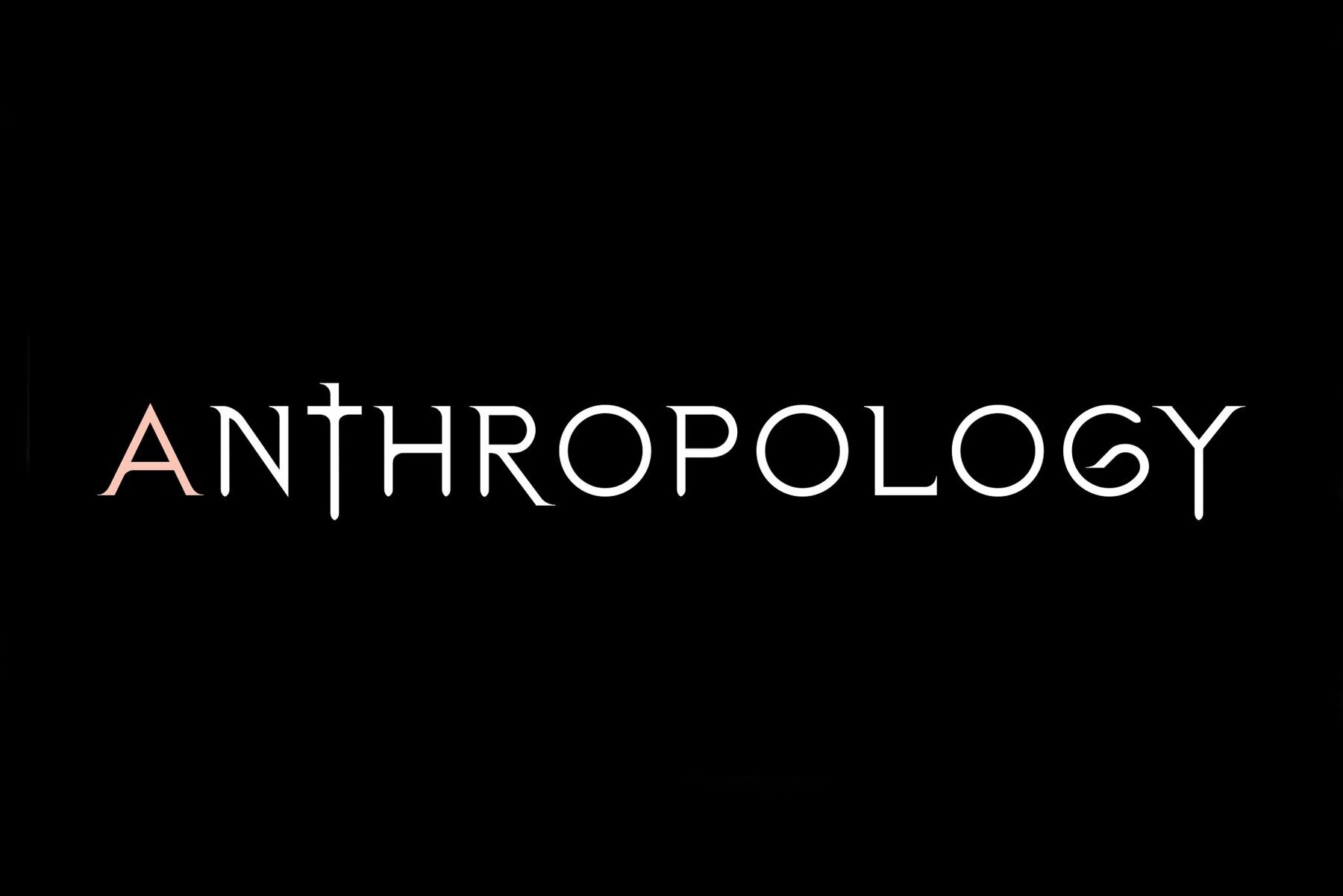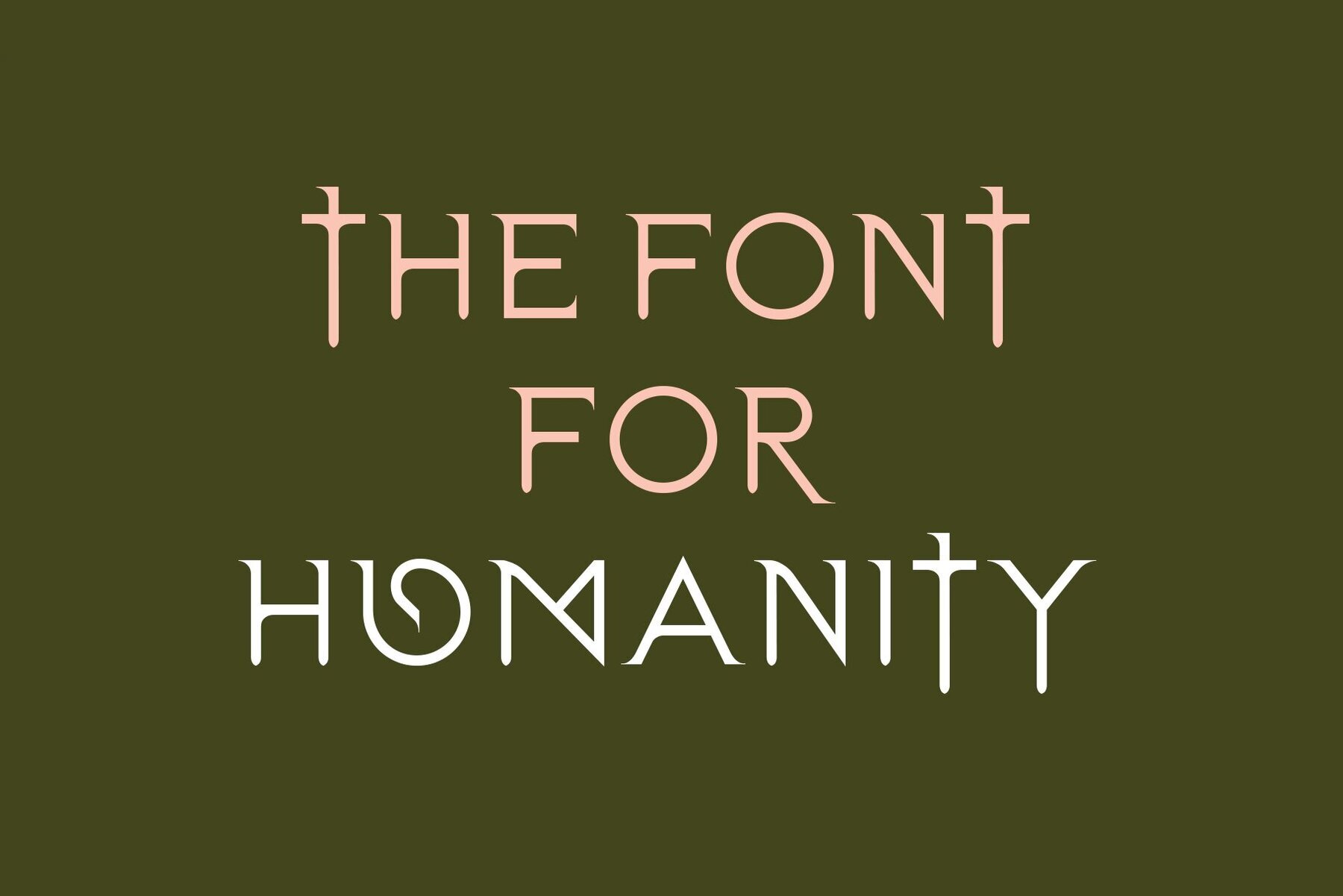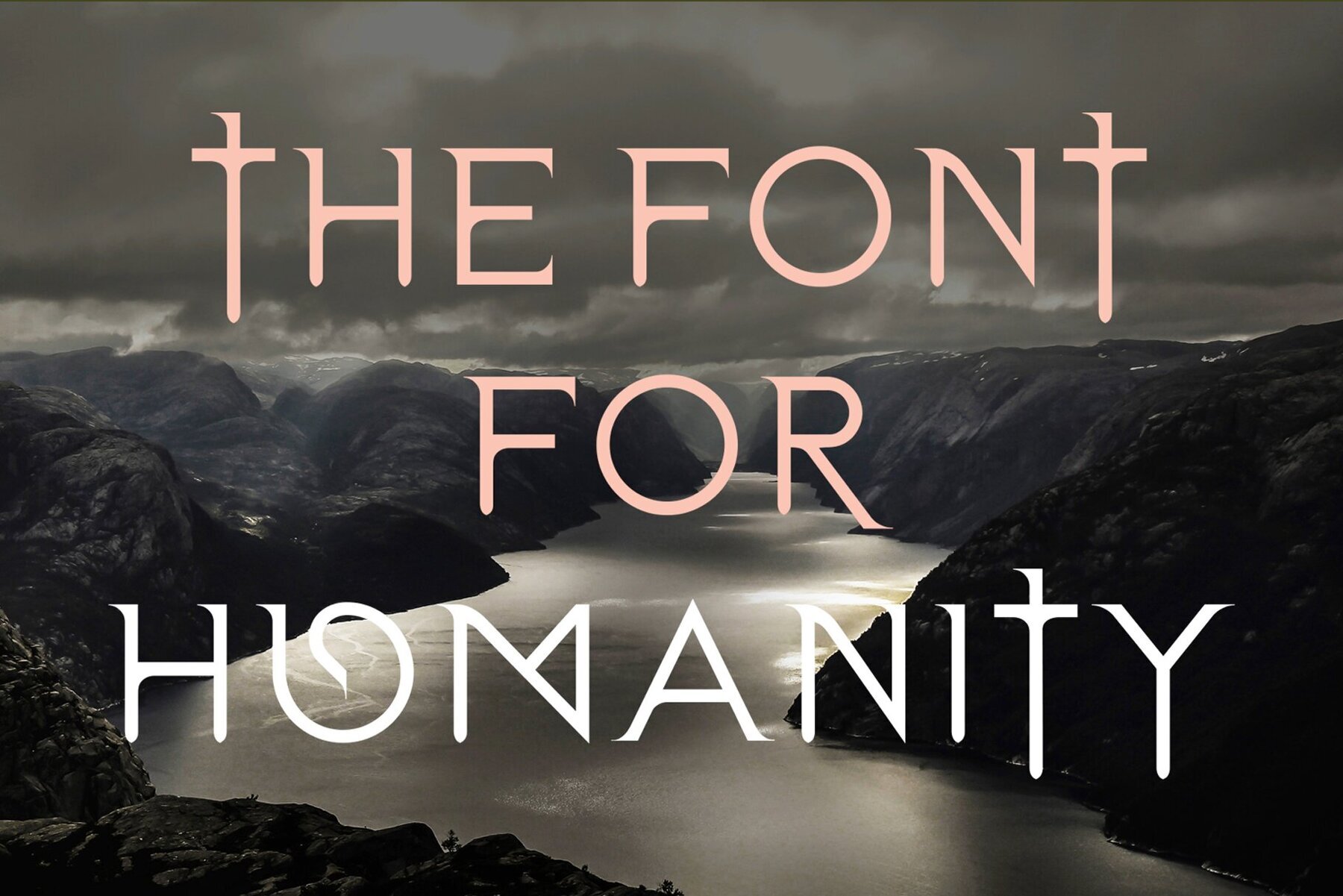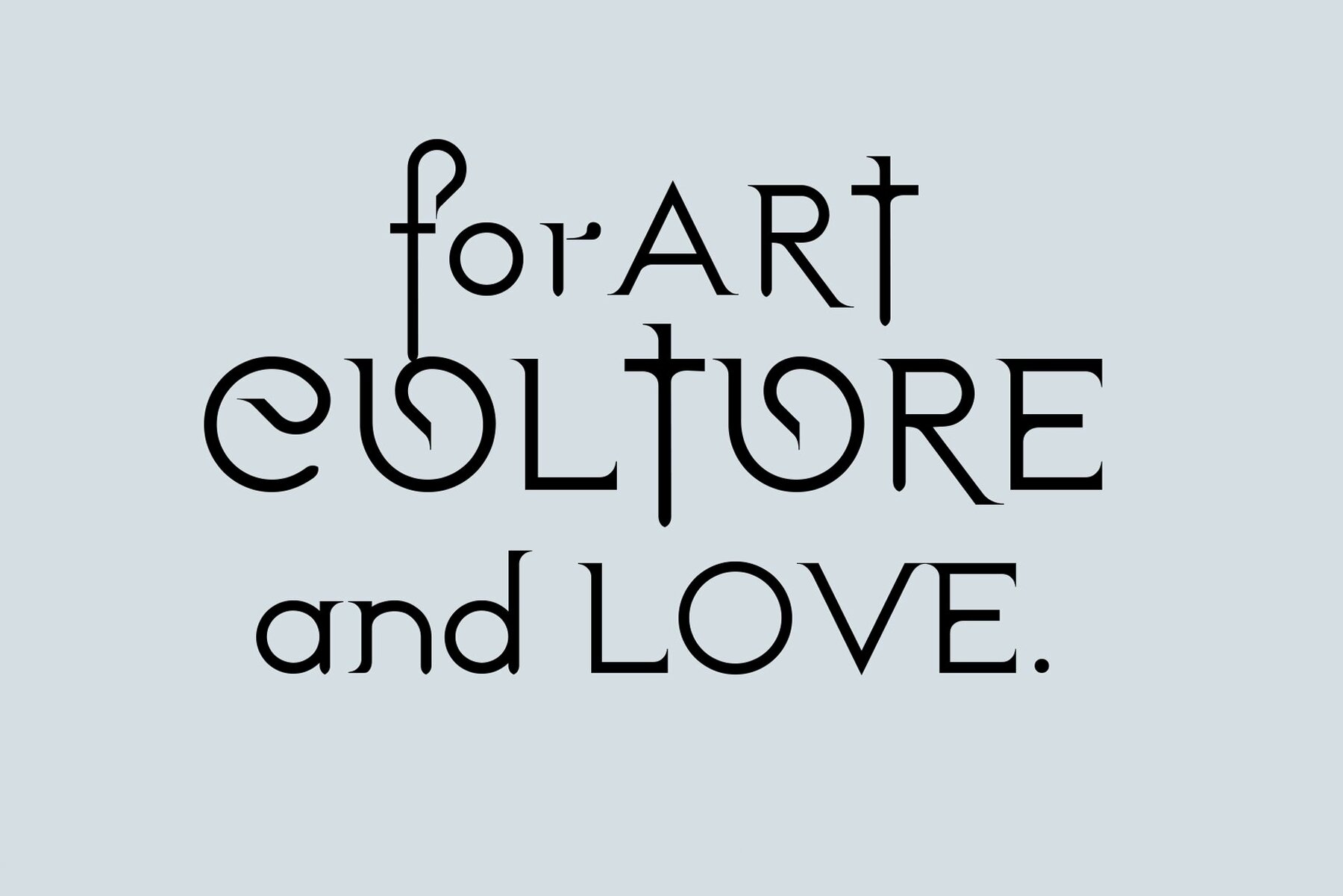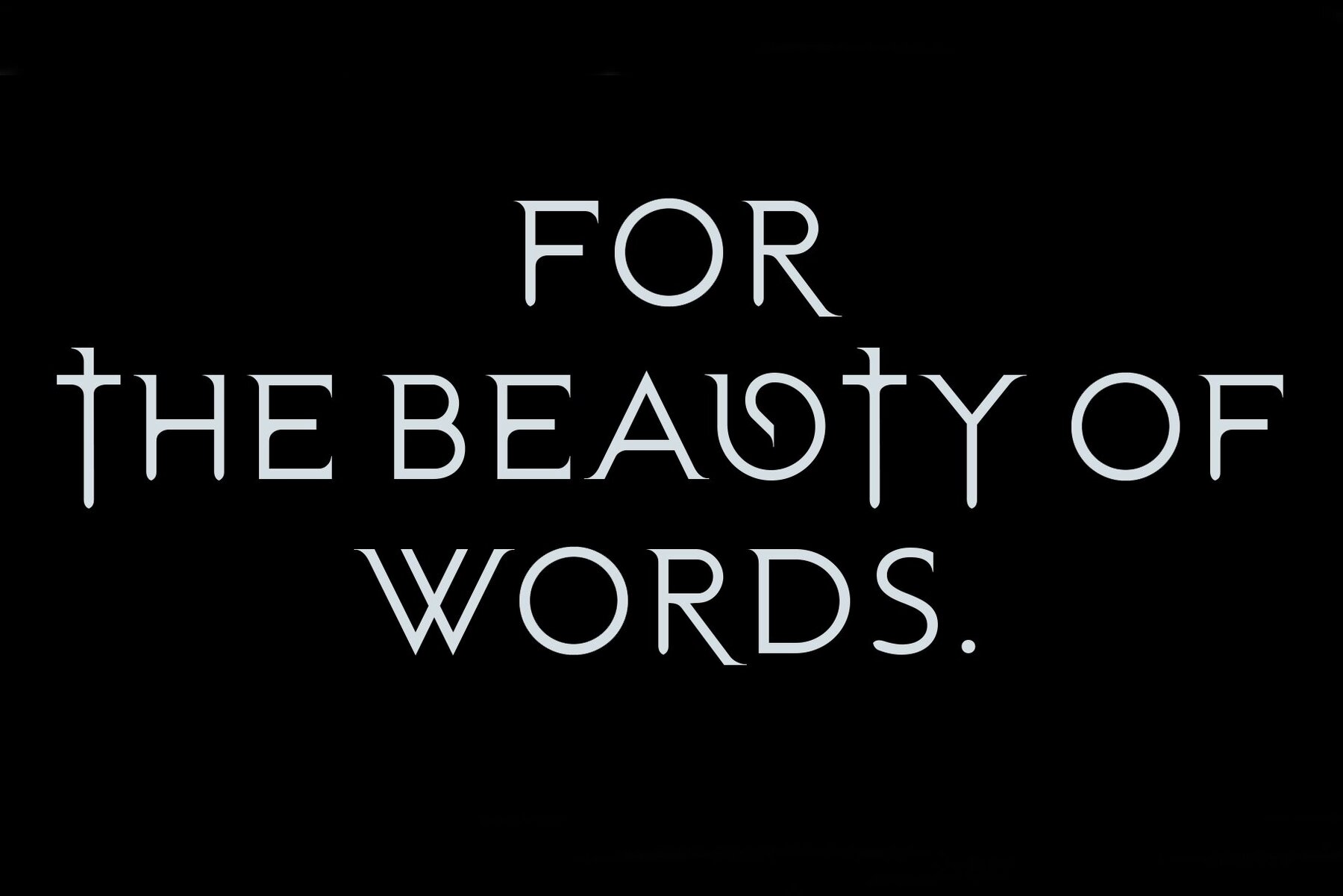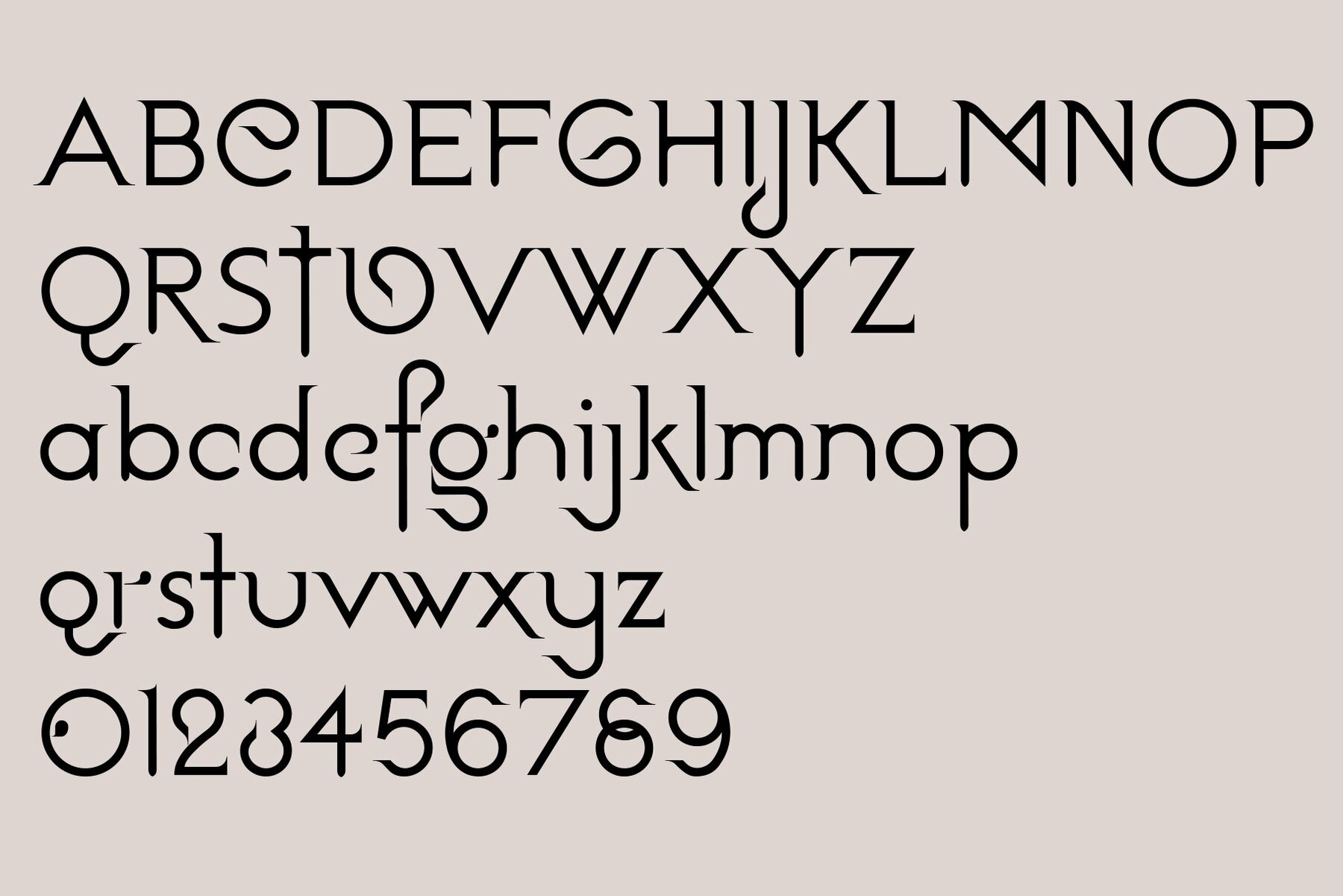
Anthropology Font
Anthropology is another beautiful new font for designers from LostandFoundry. Anthropology is the study of humanity. And with this unique font I wanted to create a timeless design that embraced different cultures as well as the past and the present, to truly celebrate the greatest expression of our humanity - the written word. This font, while having one foot in the past, is also very clearly a clean-lined contemporary font that can be used across many branding and design projects - in logos, headlines, titles, packaging design, wedding designs, and online in websites, blogs, vlog titles, Youtube creator titles and social media post titles. Use Anthropology when you want a font with true character and identity. This stunning font comes in 2 weights and supports French, German and other European languages.